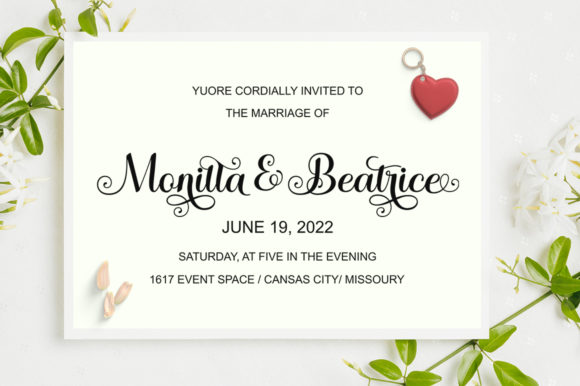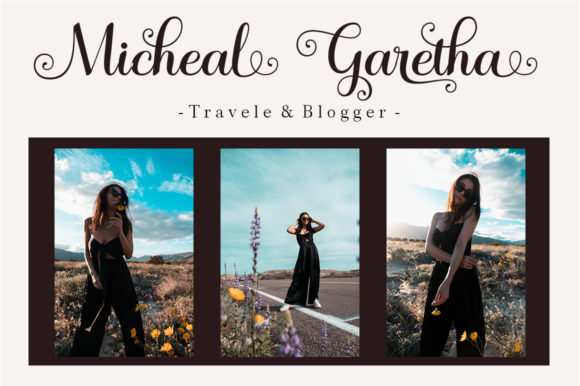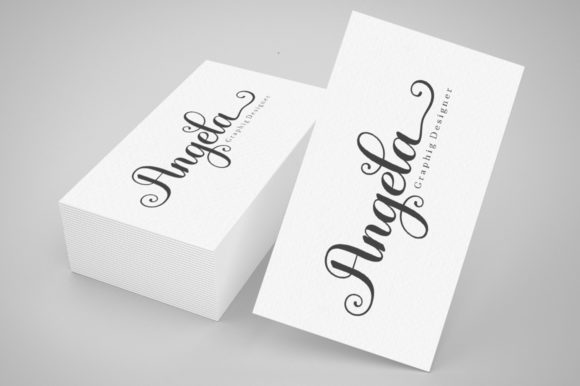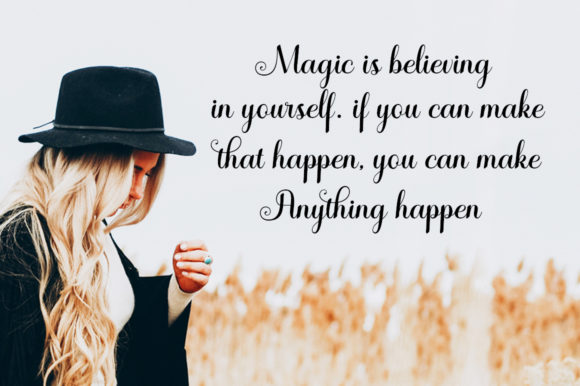
Winterday Font
Winterday is a delicate and timeless handwritten font. It is the ideal choice for creating sweet logos, branding and quotes. Every letter has a unique and beautiful touch, which will make your design come alive!